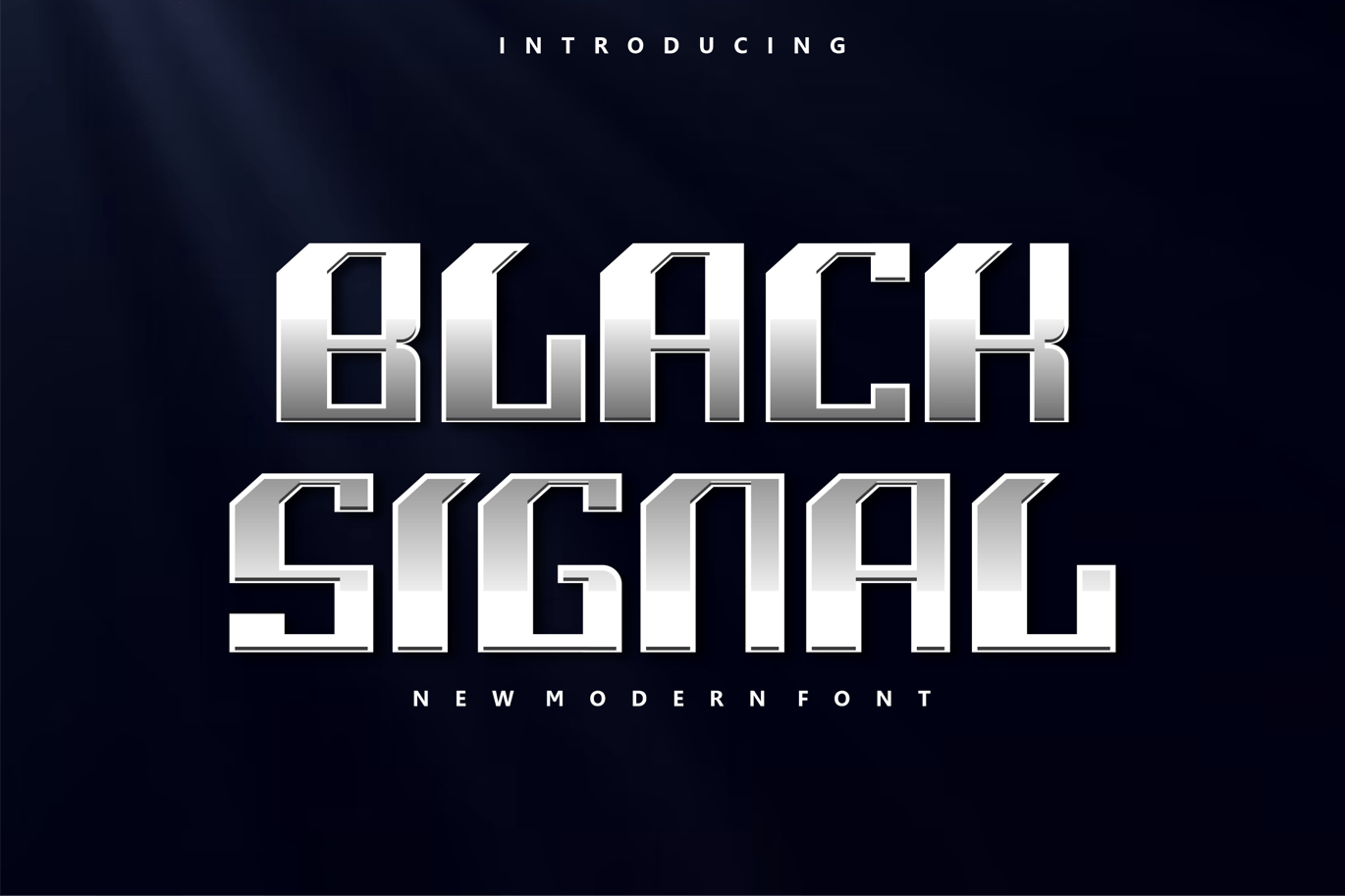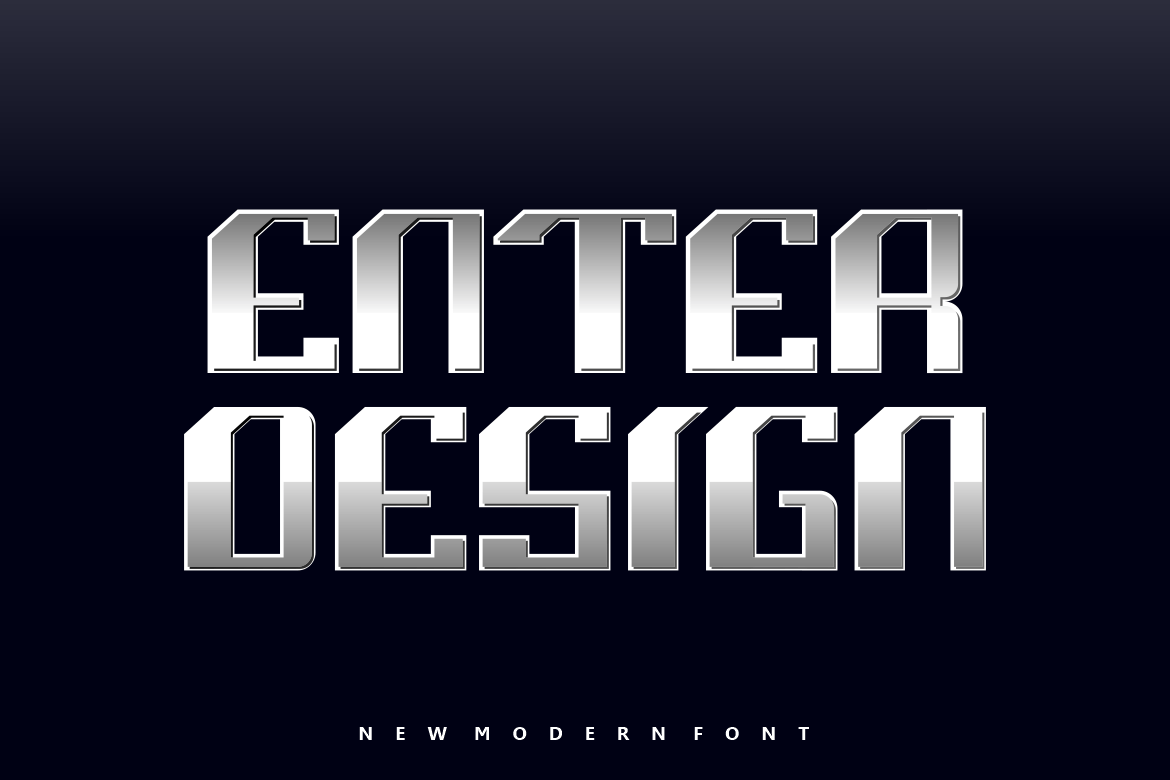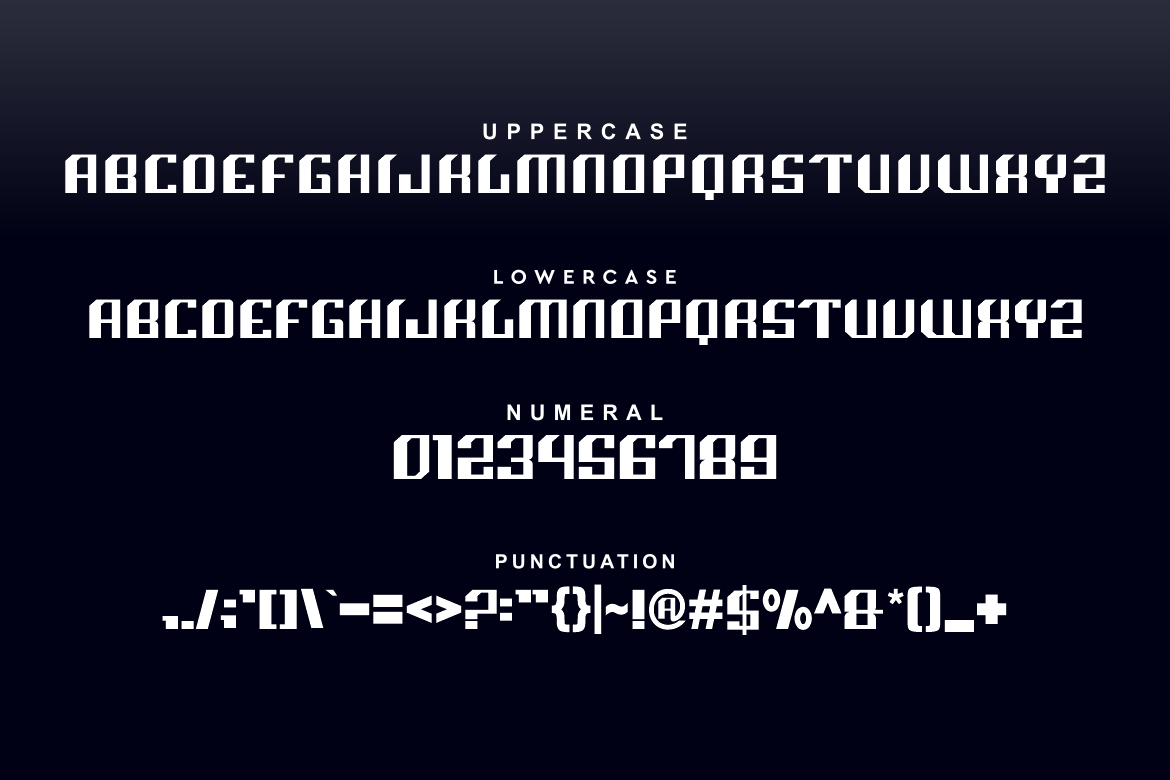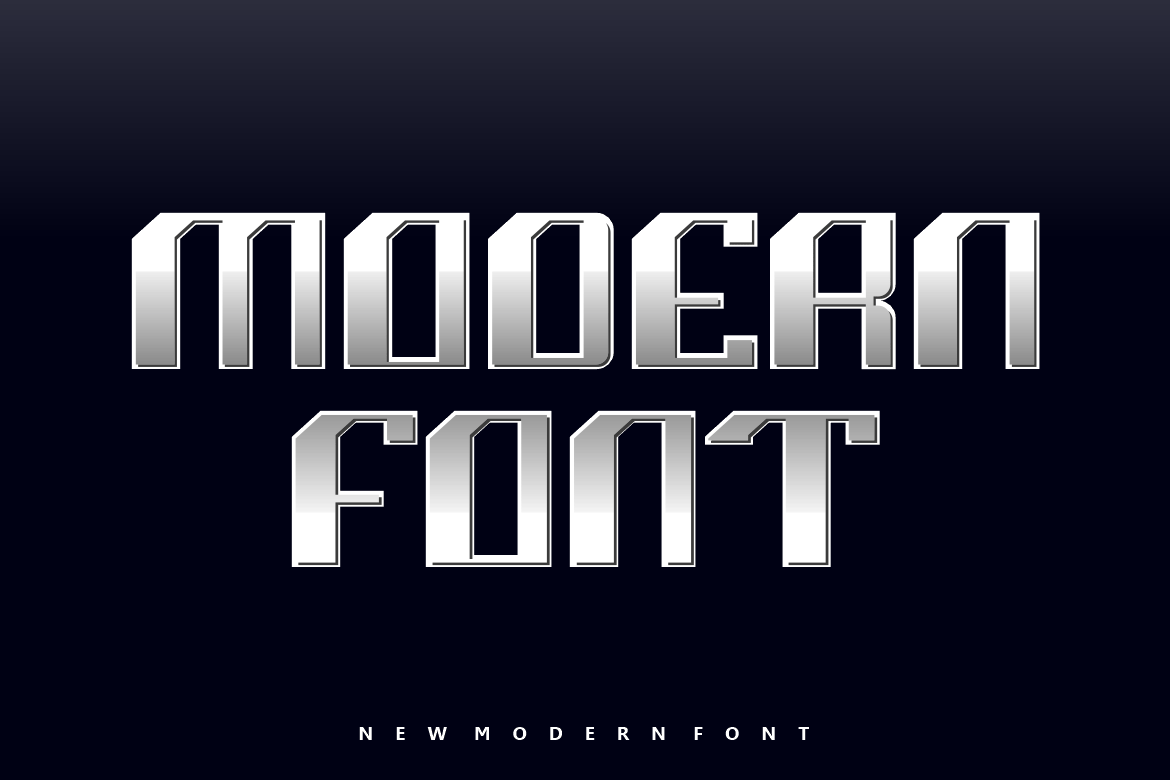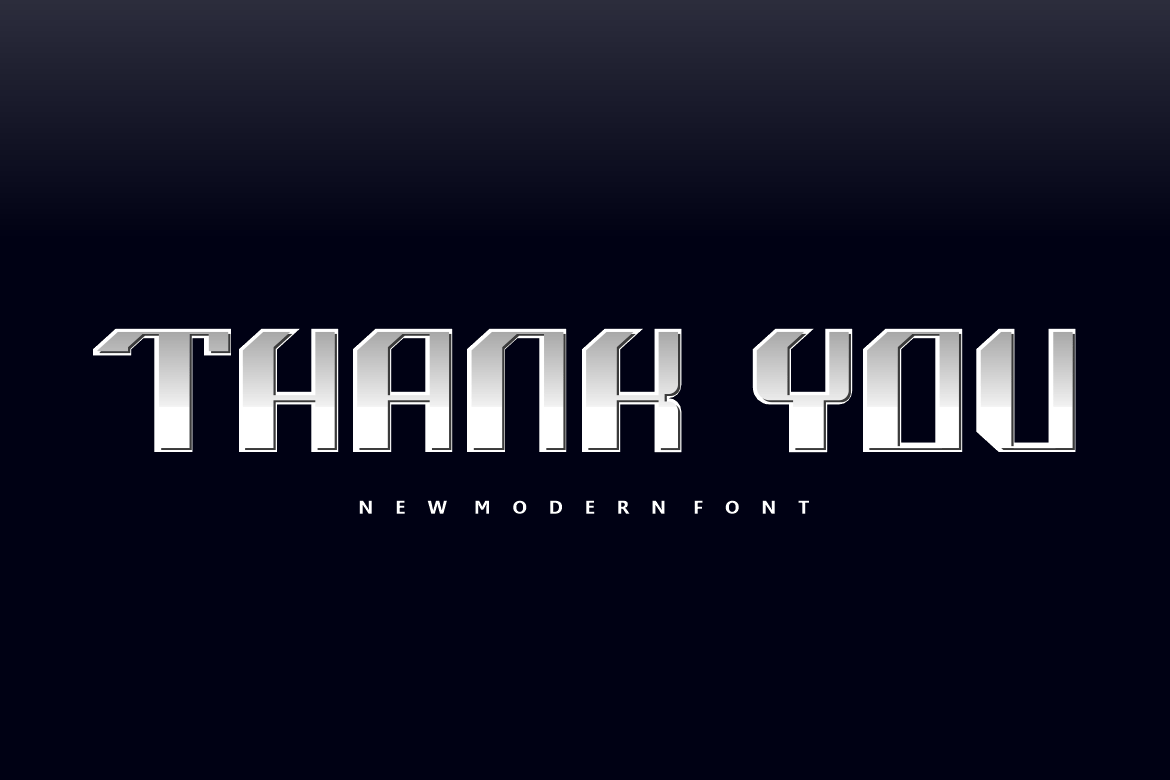
Black Signal Font
Introducing our new product Black Signal Font – Modern Font
Black Signal Font – Modern Font is a bold and authentic display font. The font is suitable for any branding project like logo, t-shirt printing, esport, and many more. outstanding in a wide range of contexts.